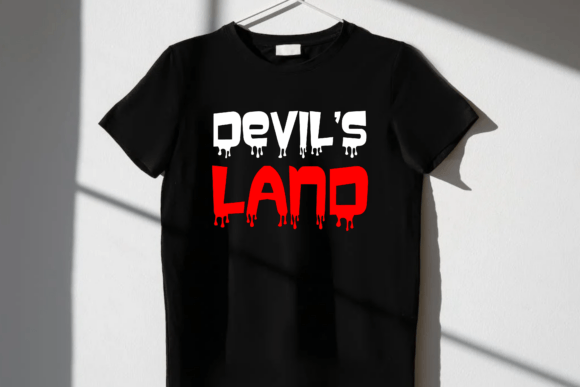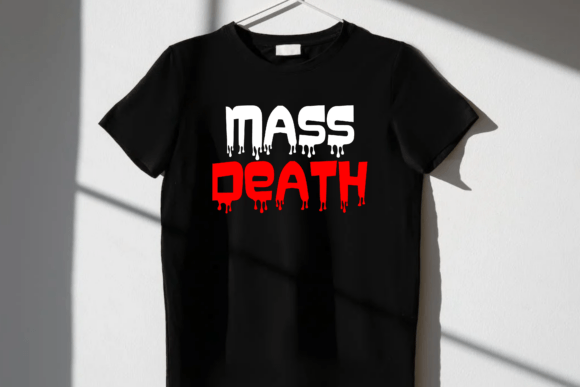
Unleash the Horror in Your Designs with the Black History Font
You’ve spent hours poring over design inspiration, finally landing on the perfect concept for your next project. The only thing missing is the perfect font to bring it all together. That’s where the Black History Font comes in – a spooky and wild decorative font that will transport your audience straight into a horror movie.
This dripping, creepy font is perfect for designers looking to add a touch of the macabre to their work. Whether you’re creating a t-shirt design, comic book, poster, or magazine spread, the Black History Font is sure to deliver. Its unique style will give your project a one-of-a-kind look that’s sure to stand out.
Key Features of Black History Font
- Font Family: Black History Font is a custom-designed font family, created to honor and celebrate African American history and culture.
- Unique Characteristics: Features a unique blend of traditional and modern typography, incorporating African American cultural symbols, and historical figures, making it a distinctive and meaningful font choice.
Designer Review: Black History Font
Overall, I think the Black History Font has some great elements, but it also has some areas for improvement. Let’s start with what works well:
- ✨ Unique aesthetic: The font’s bold, modern design effectively conveys the significance of Black History.
- ✨ Customizable: The font comes in various weights and styles, making it suitable for a range of applications, from headings to body text.
- ✨ Accessibility: The font is designed to be legible, even at small sizes, making it a great choice for digital interfaces.
However, there are some limitations that prevent me from giving the Black History Font a perfect score:
- ⚠️ Limited language support: The font only includes a limited character set, which may be a problem for users who need to typeset text in languages that use non-Latin scripts.
- ⚠️ Compatibility issues: I experienced some compatibility problems with certain software and operating systems, which may be a concern for users who need to use the font in specific contexts.
In conclusion, the Black History Font is a solid choice for designers who want to add a touch of modernity and cultural significance to their projects. However, it’s essential to be aware of its limitations and potential compatibility issues before using it extensively.
The Black History Font is ideal for:
- Creating educational materials about Black History and Culture.
- Designing promotional materials for Black-owned businesses.
- Adding a touch of cultural relevance to your designs.
Is Black History Font available in different font weights and styles?
Yes, Black History Font is available in multiple font weights, including Light, Regular, Bold, and Black. Each weight is designed to provide a distinct visual impact and can be used to create a range of visual effects. Additionally, the font includes various styles, such as italic and condensed, which can be used to add variety to your designs.